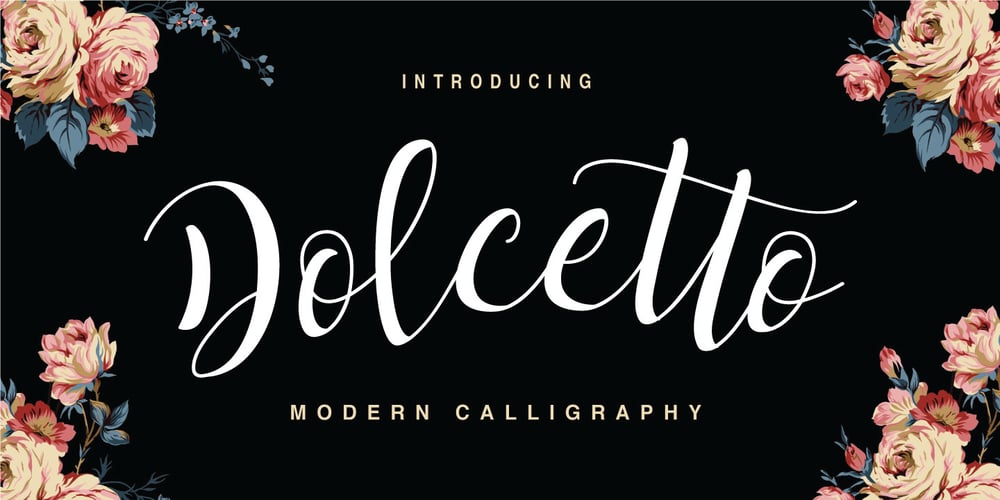
Dolcetto Script Font Family was designed by Akbar Muzrien and published by Riverside Type Foundry. Dolcetto Script contains 1 styles and family package options. Dolcetto Script is a Modern Calligraphy Script Typeface with amazing character & a multitude of letter variations to make that perfect and unique design. Ideal for a logo, a name tag, handwritten quotations, product packaging, goods, social media and greeting cards. It contains a complete set of lower and upper case letters, assorted punctuation, numbers, swash and multilingual support. The font also contains several ligatures and contextual alternates for lower case characters, accessible in the Adobe Illustrator Glyphs panel, or under Stylistic Alternates in the Adobe Photoshop OpenType menu.